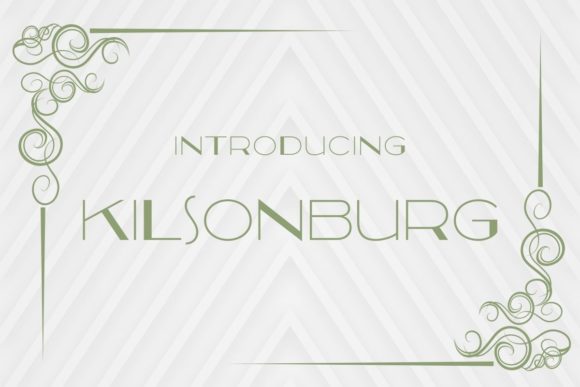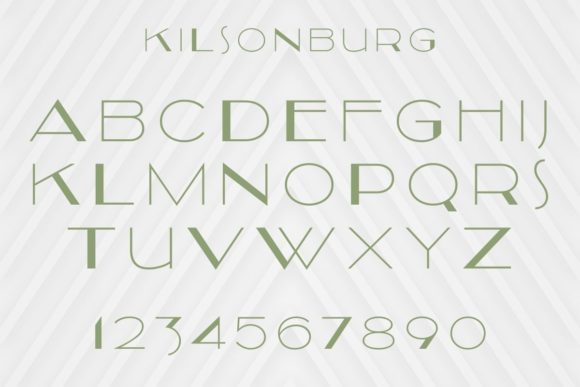
HomePersonal Use FreeKilsonburg Personal Use Free Kilsonburg FacebookXPinterestWhatsApp 1 of 2 About Kilsonburg Font Kilsonburg is an all caps, geometric display font that is inspired by 20th-century art deco. This modern typeface will look great as the focal point in your next project or design! DOWNLOAD ON CREATIVE FABRICAThis font is sold and delivered by Creative Fabrica. Font Canyon may earn a commission if you buy through this link. People also explored Girls Have Many Secrets Font Manjha Font Angelia Script Font Wild Life Font Gaulmen Font Antique Script Font Coffee Cup Font Saint Germain Font Gastro Intestinal Confluent Font 411 0 TagsKilsonburg Font Previous articleSettaNext articleJoystix Monospace LEAVE A REPLY Cancel reply Comment: Please enter your comment! Name:* Please enter your name here Email:* You have entered an incorrect email address! Please enter your email address here Website: Save my name, email, and website in this browser for the next time I comment. Personal Use Free Sweet Beautiful Personal Use Free Read more about this font Septhine Personal Use Free Read more about this font Gdynia Personal Use Free Read more about this font Unsteady Overseer Personal Use Free Read more about this font BLOG 5 Fonts That Will Dominate Design Trends in 2026 5 Fonts for 2026 That Will Dominate Design Trends Typography plays a critical role in visual communication, and as we look ahead to 2026, it’s... How to Cut Any Font on Cricut: Convert a Font to SVG (Free) Best Fonts for YouTube Videos: Make Your Thumbnails Stand Out The 10 Best Handwriting Fonts to Add Personality to Your Designs